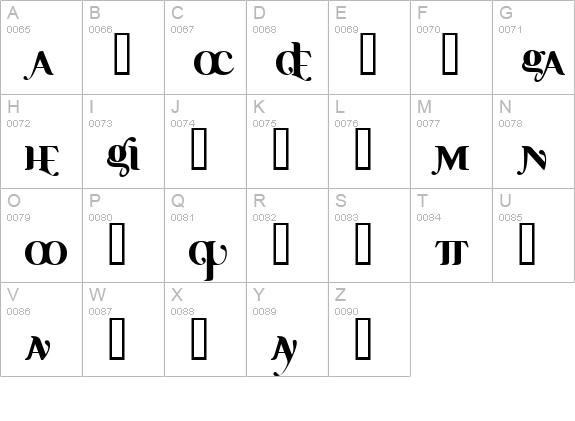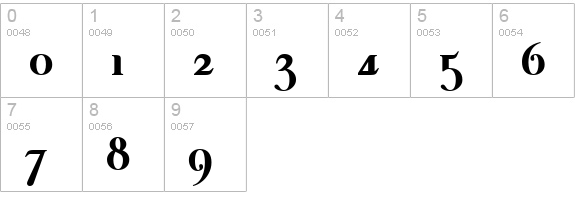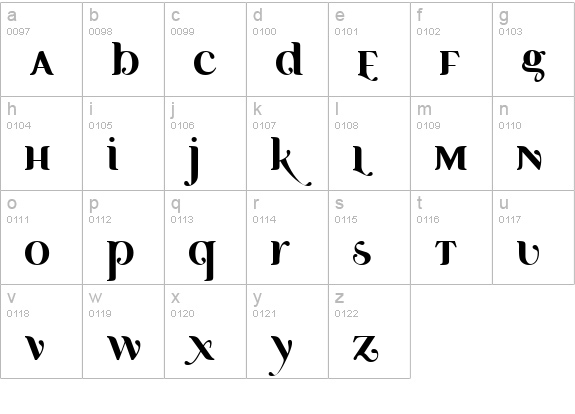
Ayosmonika Bold is a strong, high-contrast variant in the Ayosmonika typeface family \xE2\x80\x94 well suited to headlines, attention-grabbing titles, and strong calls-to-action.
Ayosmonika Bold font is a stylish and versatile typeface that exudes confidence and sophistication. With its bold and eye-catching design, this font is perfect for creating impactful headings, titles, and logos. The clean lines and sharp edges of Ayosmonika Bold make it a great choice for both digital and print designs. One of the best things about Ayosmonika Bold font is that it is freely available to download at FontsMarket.com. This means that you can easily add this stunning typeface to your collection without any cost. Whether you are working on a personal project or a professional design, Ayosmonika Bold font will elevate your work and make a lasting impression. Don't miss out on this opportunity to enhance your design projects with the sleek and modern Ayosmonika Bold font. Download it for free today at FontsMarket.com and take your designs to the next level.